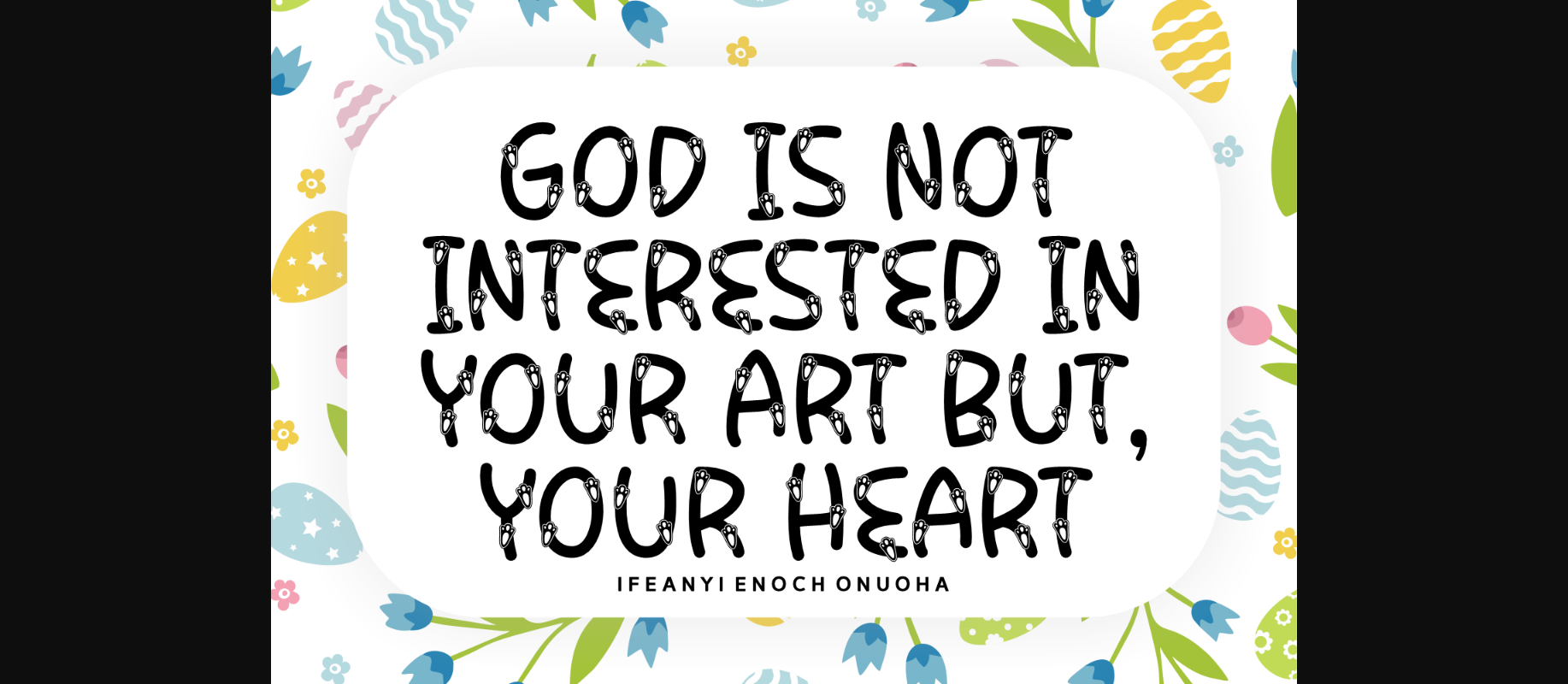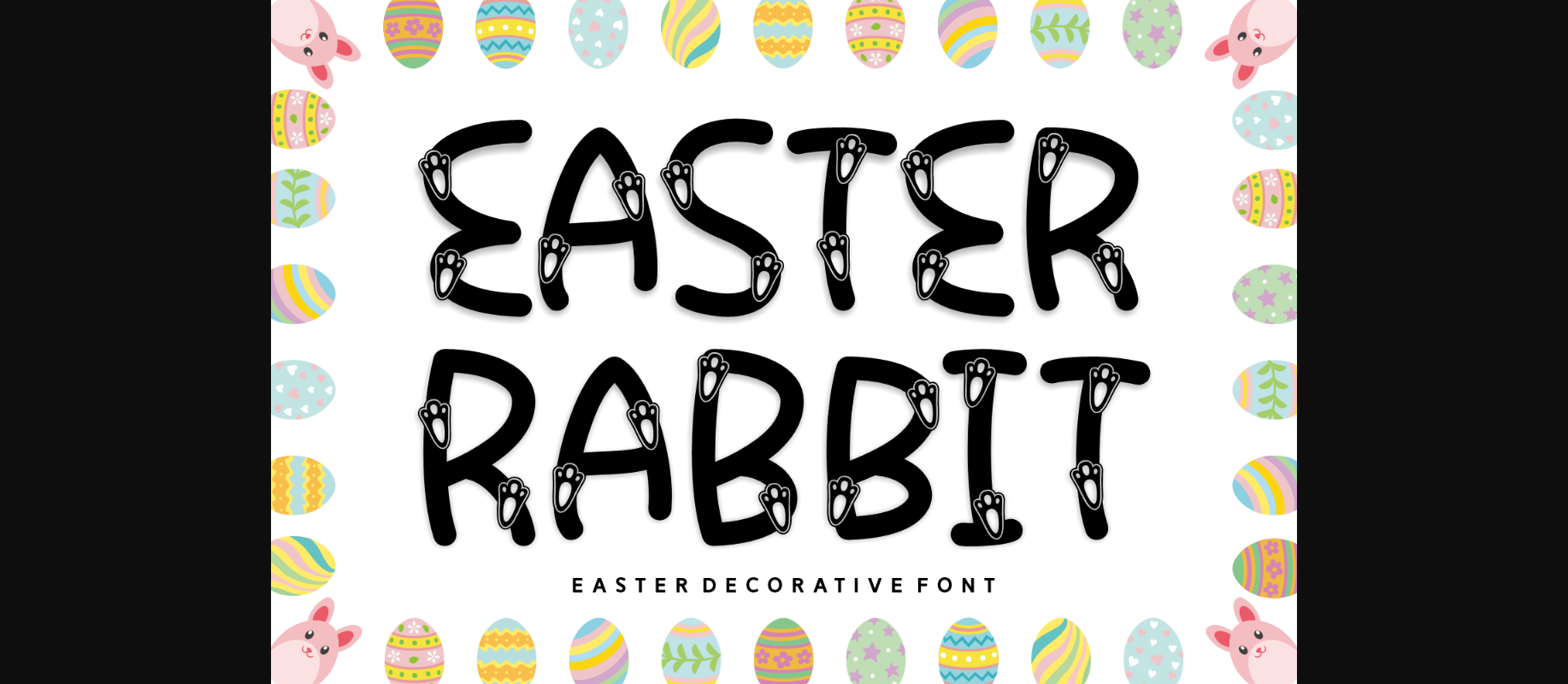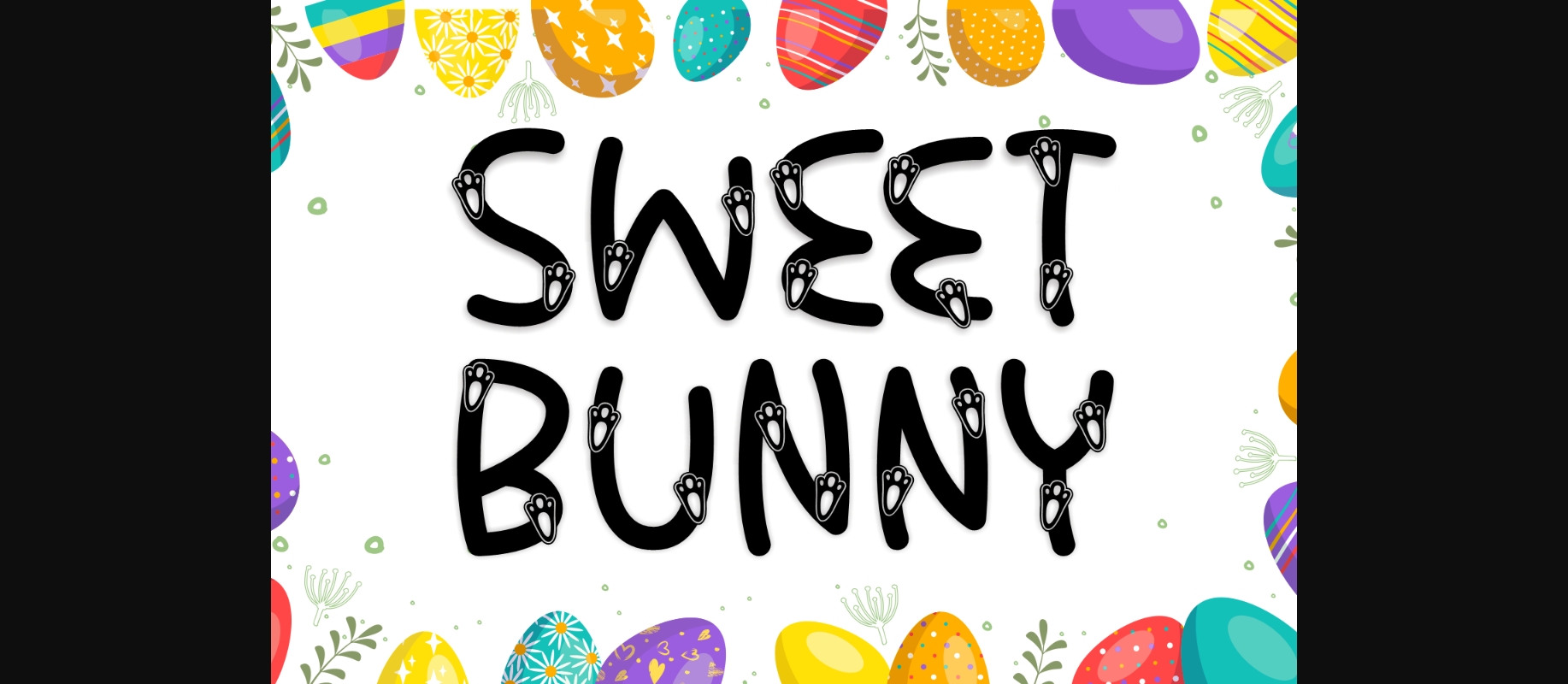
About Easter Rabbit Font
Easter Rabbit is a charming decorative font that brings a playful touch to your projects. What sets it apart are the adorable rabbit paw prints that adorn the letters, adding a cute and festive vibe. Ideal for Easter-themed designs or anything that needs a sprinkle of whimsy, this font captures the joy of the season. Whether you’re creating invitations, cards, or other playful materials, Easter Rabbit is the perfect choice for a delightful and heartwarming look.